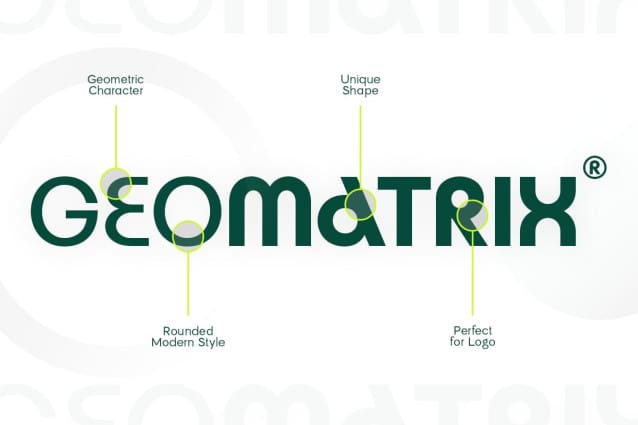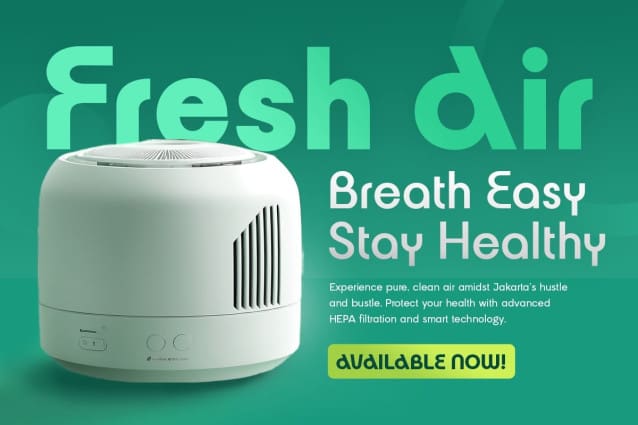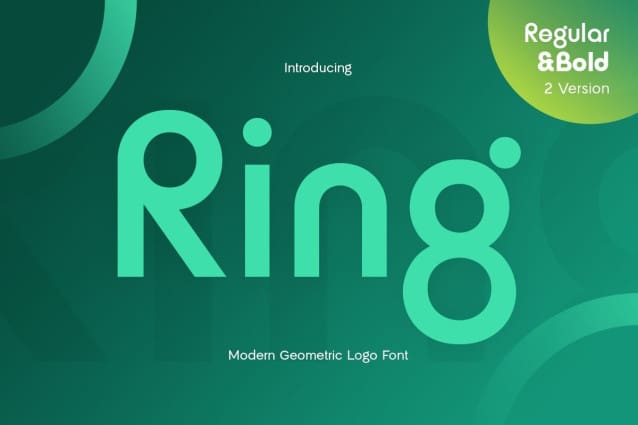
Ring Geometric Font
Ring Geometric Font is a modern geometric logo font designed to bring precision and style to any branding project. With its clean, minimalist lines and geometric shapes, Ring Geometric is ideal for technology companies, corporate logos, and modern product brands. Its simple yet powerful design reflects a balance between creativity and professionalism, ensuring an elegant and impactful visual identity.
Designed with attention to detail, Ring offers versatility across a wide range of applications, from business cards to product packaging to digital platforms. Its unique letterforms create a cohesive, refined look, perfect for brands looking to make a bold, sophisticated statement.
Ring comes equipped with alternate characters and supports multiple languages, making it an essential tool for designers looking for a high-quality, modern font that improves both readability and aesthetic appeal.